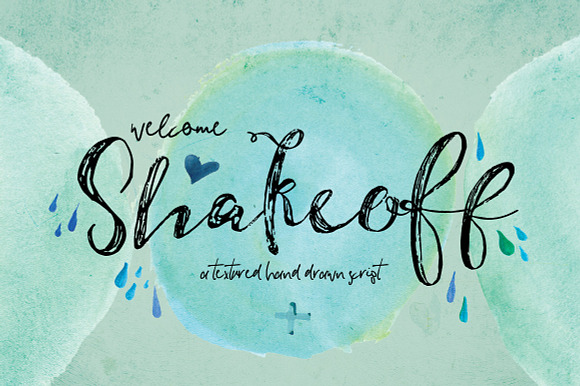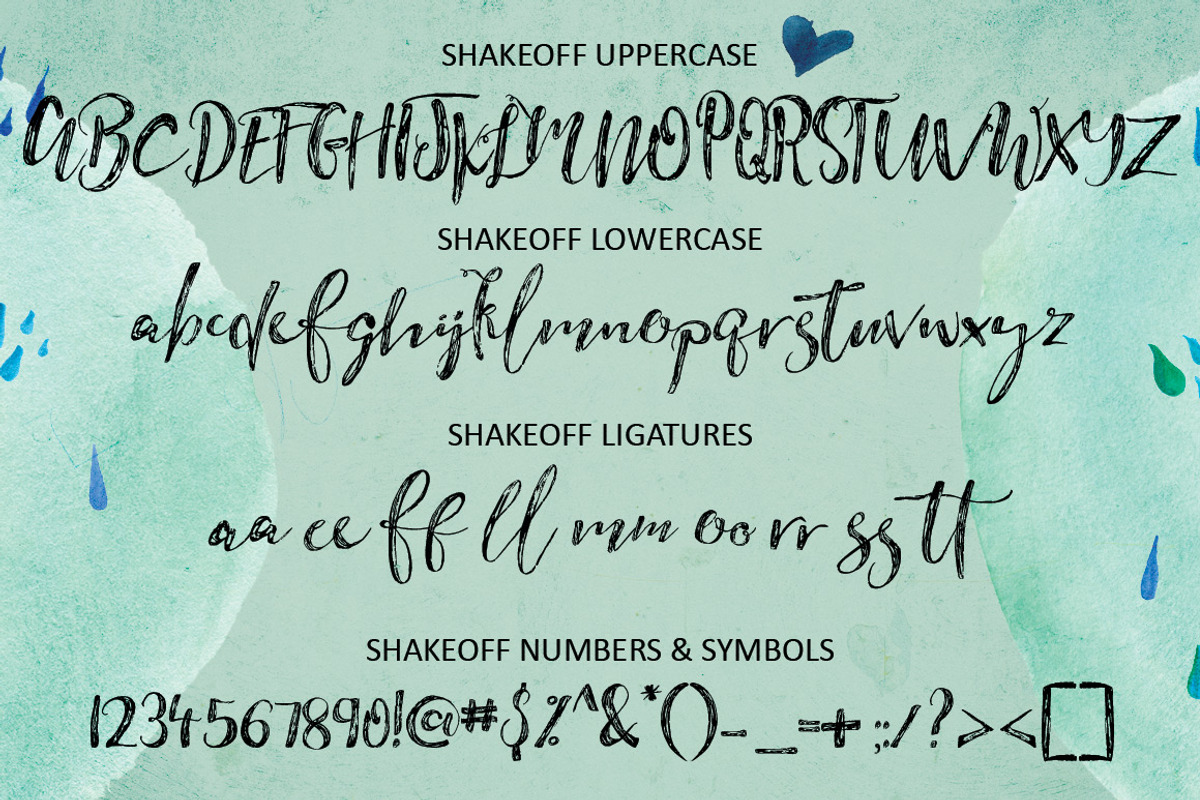
Shakeoff Font
Shakeoff - a cool script font. This font is part of the Gobsmacking Font Bundle
Why Shakeoff Font is worth a look
Shakeoff Font by Creativeqube Design fits naturally into Branding, posters, packaging, typography.